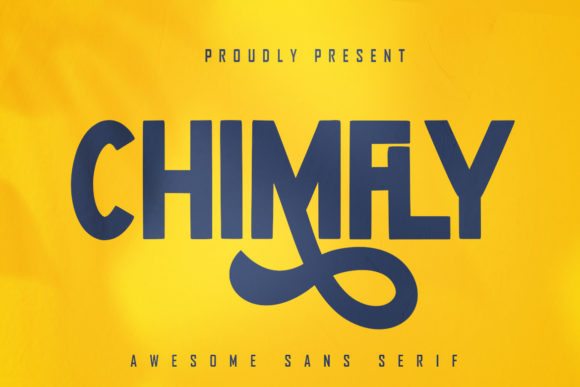
Introducing Chimfly Font, the ultimate typeface for your brand's ascent. Crafted by the ingenious minds at Skiiller Studio, Chimfly is a sans serif masterpiece that exudes coolness and audacity. Its sharp edges and confident strokes are designed to capture attention, making it the perfect choice for any design that demands a touch of distinction.
We know that choosing the right font for your business or personal project is like finding the perfect outfit - it has to fit your style and make a statement. With Chimfly Font, you can soar above the ordinary and leave an unforgettable impression. This font is not just a collection of letters; it's a tool to express your unique vision and connect with your audience on a deeper level.
Whether you're designing a sleek website, creating professional business cards, or crafting captivating social media graphics, Chimfly Font is your indispensable companion. Its versatility knows no bounds, allowing you to experiment with different styles and designs with ease. From minimalist logos to bold headlines, Chimfly adds a touch of sophistication and professionalism to every project you undertake.
But what truly sets Chimfly apart is its ability to evoke emotion. The carefully crafted curves and angles of each letter convey a sense of confidence and authority, inspiring trust and credibility in your audience. Whether you're aiming to make a bold statement or establish a lasting connection, Chimfly Font has the power to amplify your message and resonate with your target audience.
So, why settle for ordinary fonts when you can soar with Chimfly? Download Chimfly Font today and unlock a world of creative possibilities. Let its bold strokes guide your designs, capture the attention of your audience, and elevate your brand to new heights. The sky's the limit with Chimfly Font - your imagination is the only boundary.
**Features of Chimfly Font:**
* Sans serif typeface with sharp edges and confident strokes
* Ideal for web design, business cards, logos, and more
* Versatile and adaptable to a wide range of design styles
* Evokes emotions of confidence, authority, and professionalism
* Designed to make a bold statement and leave a lasting impression
**Benefits of Using Chimfly Font:**
* Enhances the visual appeal of your designs
* Establishes a strong and credible brand identity
* Connects with your audience on an emotional level
* Boosts your marketing efforts and drives conversions
* Sets your brand apart from the competition